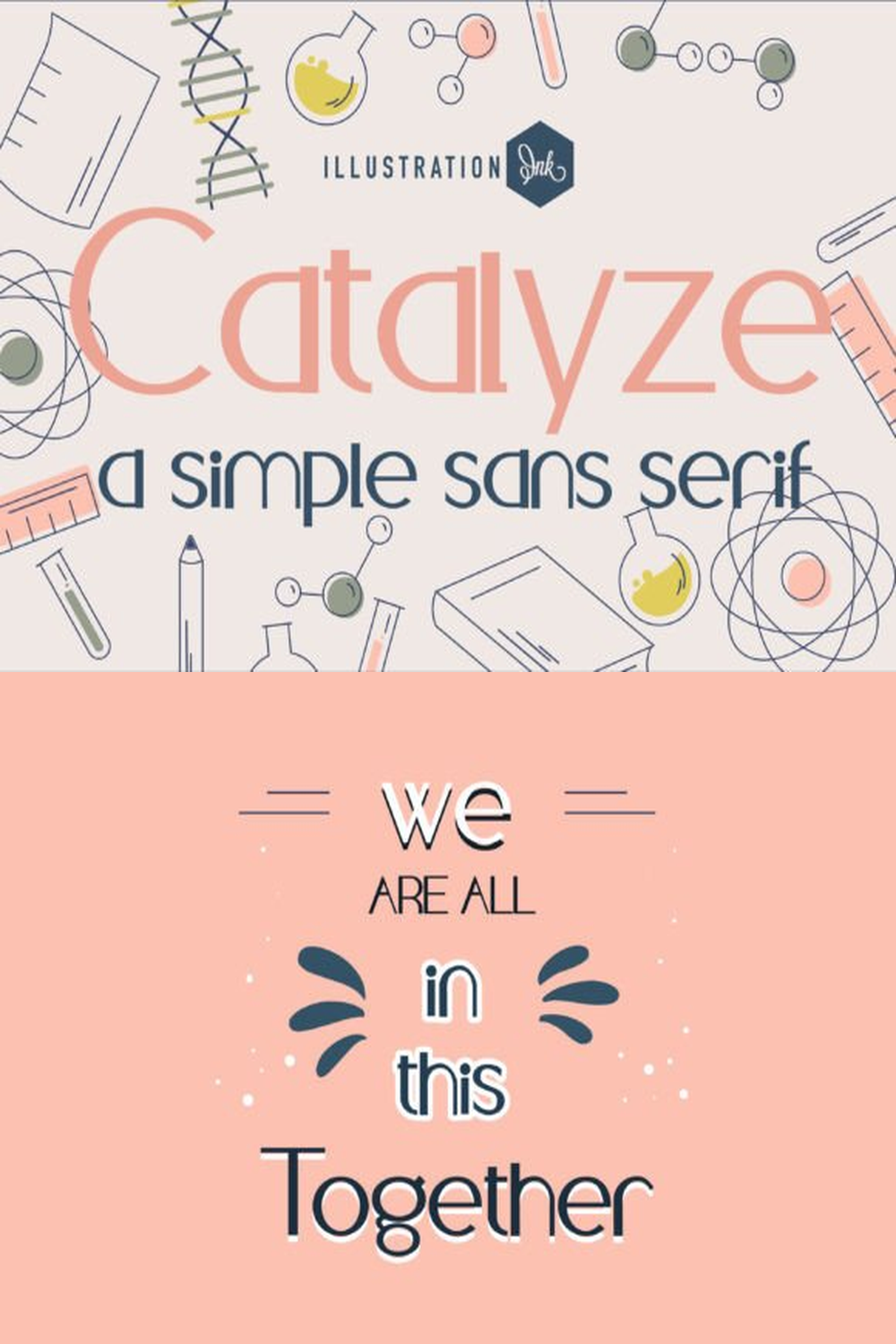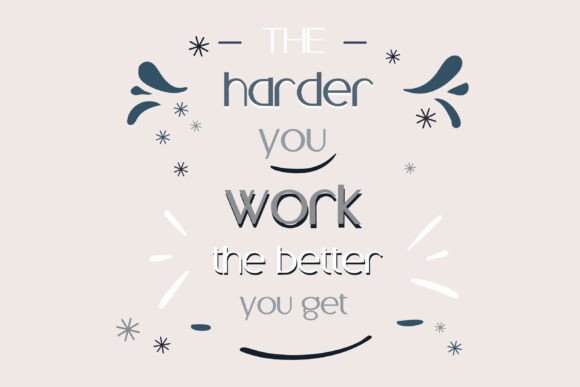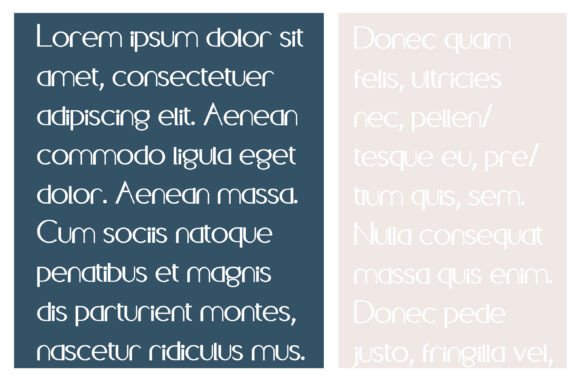
Catalyze Font
About the Catalyze Font
Unleash your creativity with Catalyze Font, a versatile font perfect for a wide range of applications. This hand-crafted sans serif is squatty and a bit modern.